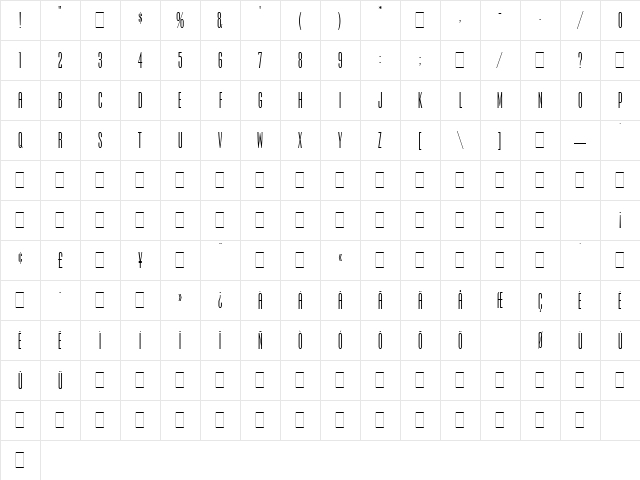
Complete Iris LET Plain glyph index. Displaying only characters natively supported by Iris LET Plain font.
Iris LET is a composed and adaptable typeface that performs quietly and consistently across a wide range of design contexts.